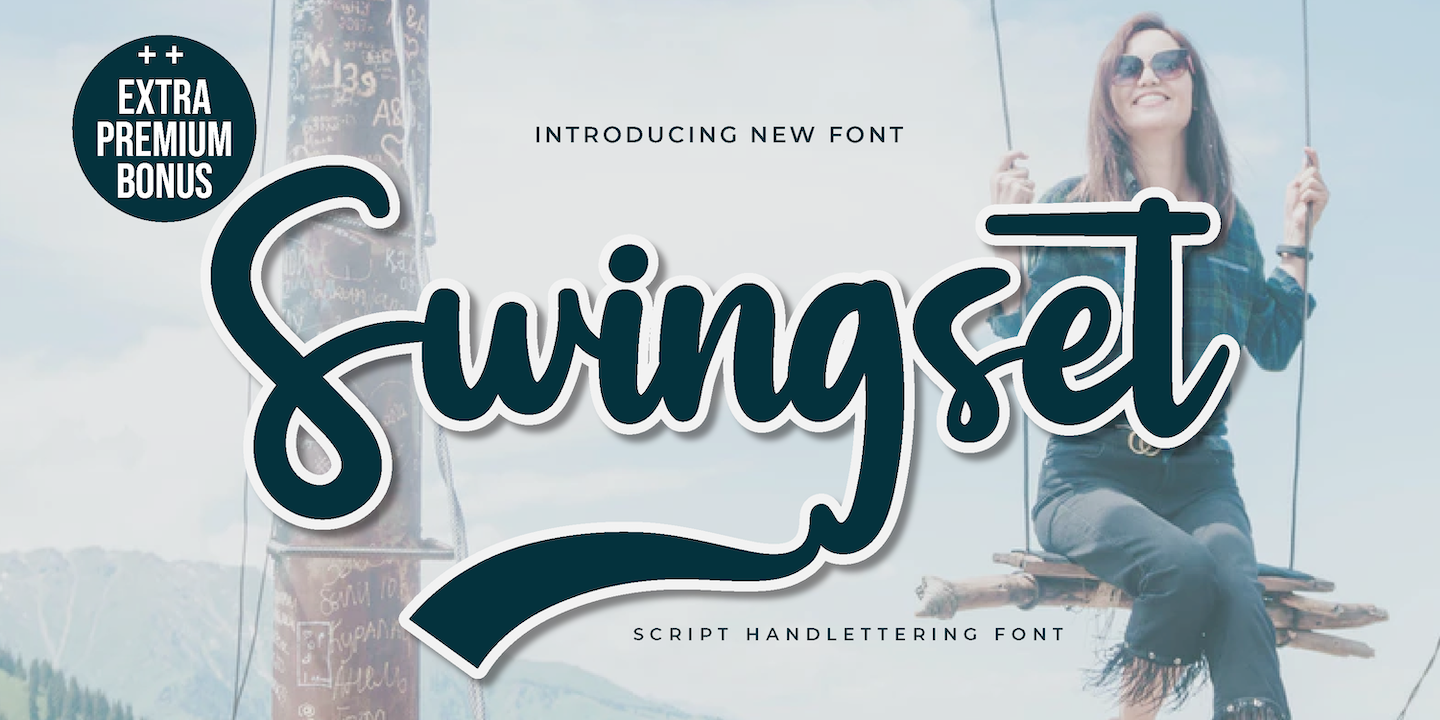
Swingset Font is perfect for playground equipment branding, children's park signage, daycare center materials, family recreation marketing, outdoor play equipment advertising, and joyful childhood-themed campaigns. Its playful character makes it ideal for playground manufacturers, children's entertainment venues, family recreation centers, outdoor equipment companies, and any application requiring fun typography that conveys childhood joy, playground safety, and the carefree happiness of children at play and outdoor recreational activities.
Swingset Font is exciting because it captures the rhythmic motion and joyful freedom of playground swings through dynamically crafted letterforms that bounce with the same carefree energy as children enjoying outdoor play. Its swinging proportions and playground-inspired details evoke the satisfying back-and-forth motion of swings and the uninhibited laughter that fills playgrounds during active play, making it perfect for brands creating safe, joyful childhood experiences. The font's playground character transforms communications into expressions of childhood freedom and play.
Swingset Font family includes playground-ready weight variations typically featuring Light, Regular, Medium, and Bold options with playful styling that maintains childhood authenticity. The family often incorporates playground symbols, play elements, and recreational icons designed for family-friendly applications, providing designers with comprehensive tools for creating authentic, playground-focused typographic compositions.
When selecting playground and children's recreation typography solutions, Swingset Font Free Download represents an exceptional choice for childhood play and family recreation projects. This joyful typeface brings instant playground authenticity to any design, making it invaluable for playground equipment manufacturers, children's recreation companies, and family entertainment venues celebrating outdoor play. Whether you're developing playground equipment branding, creating children's park materials, or designing family recreation campaigns, Swingset Font provides the childhood joy and playground authenticity essential for creating safe, fun play experiences in today's family-focused recreation marketplace.